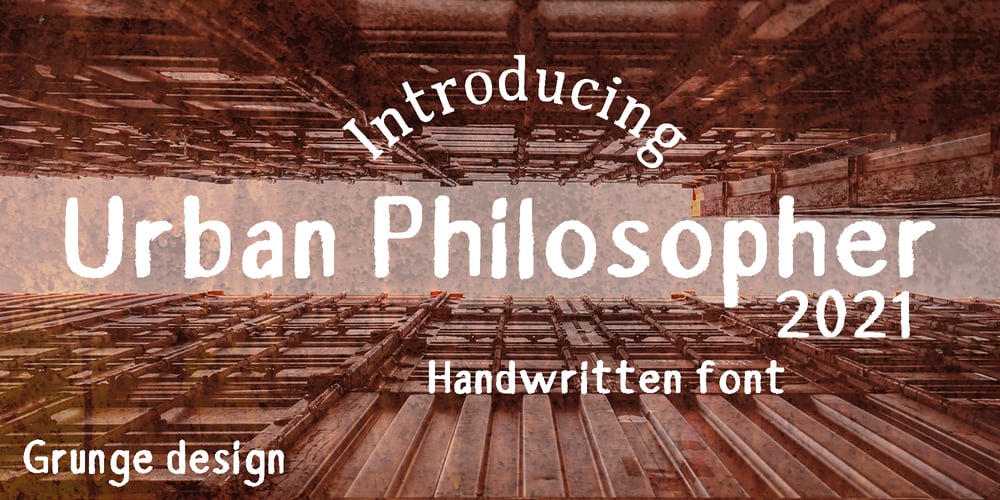
Urban Philosopher
Urban Philosopher font
Urban Philosopher Font Family was designed by Luiza Gasparyan and published by Umbra95. Urban Philosopher contains 1 styles and family package options. Urban Philosopher is a experimental font, its kind of mix of vintage typography with 80 s grunge. The font have a little messy and dirty texture, which gives it a little “horror” effect. The font includes almost all letters of the Latin alphabet.